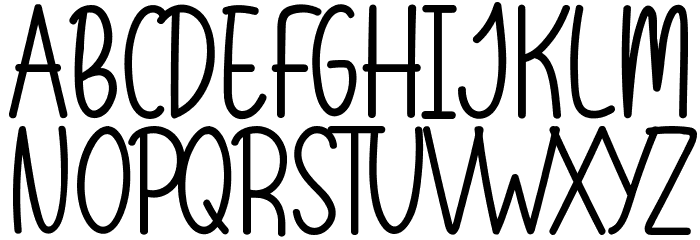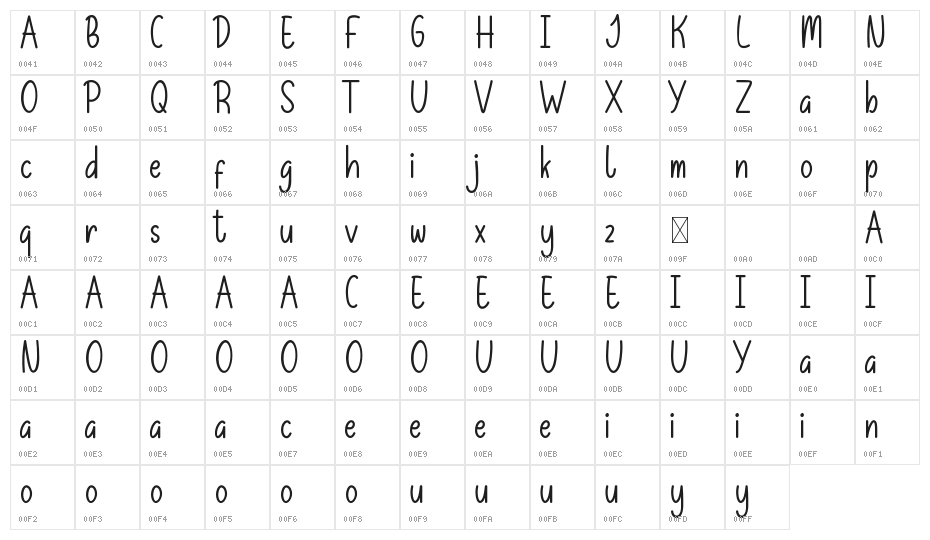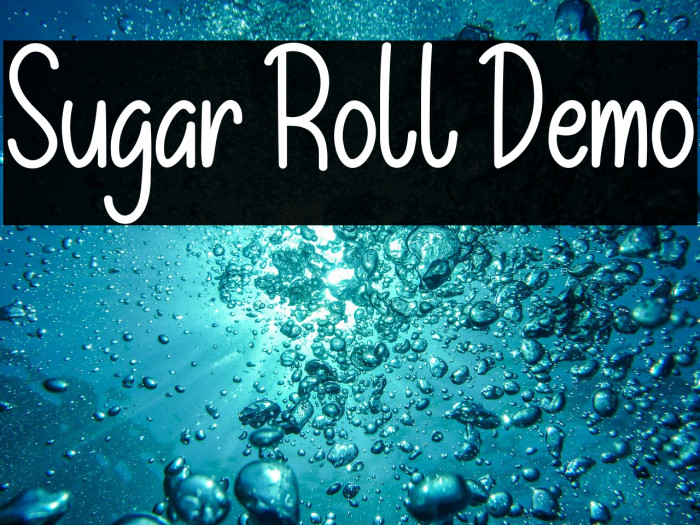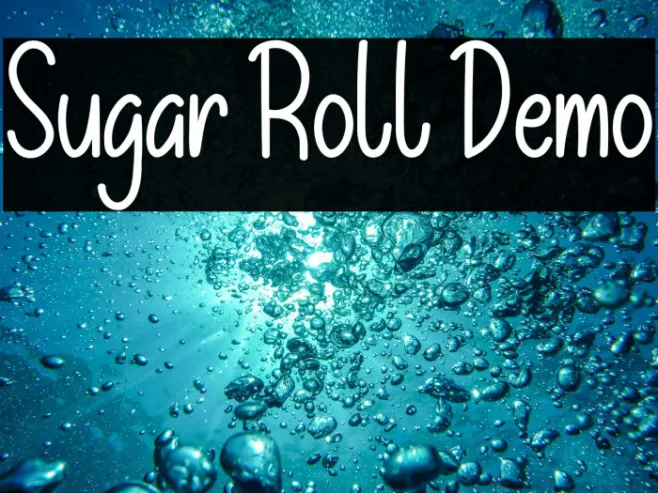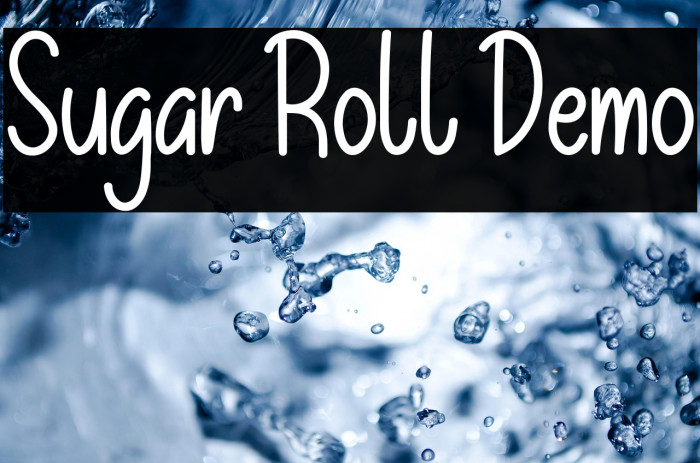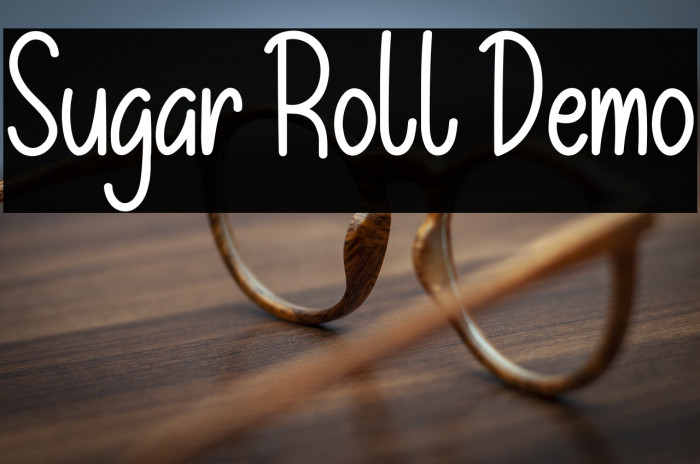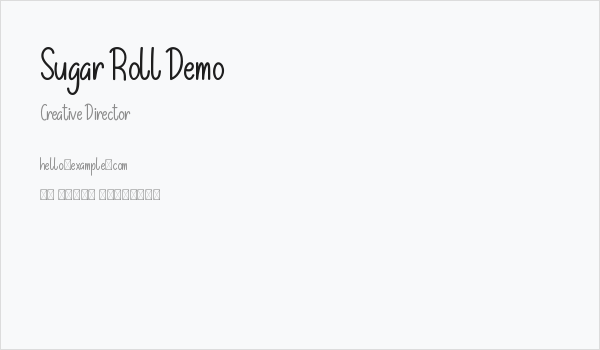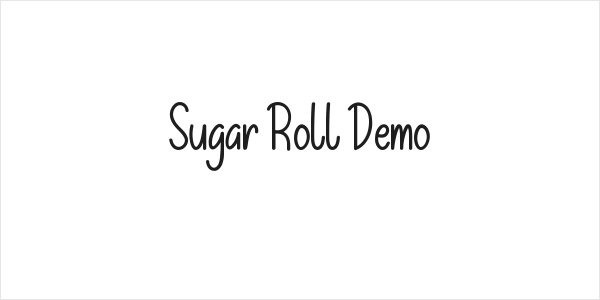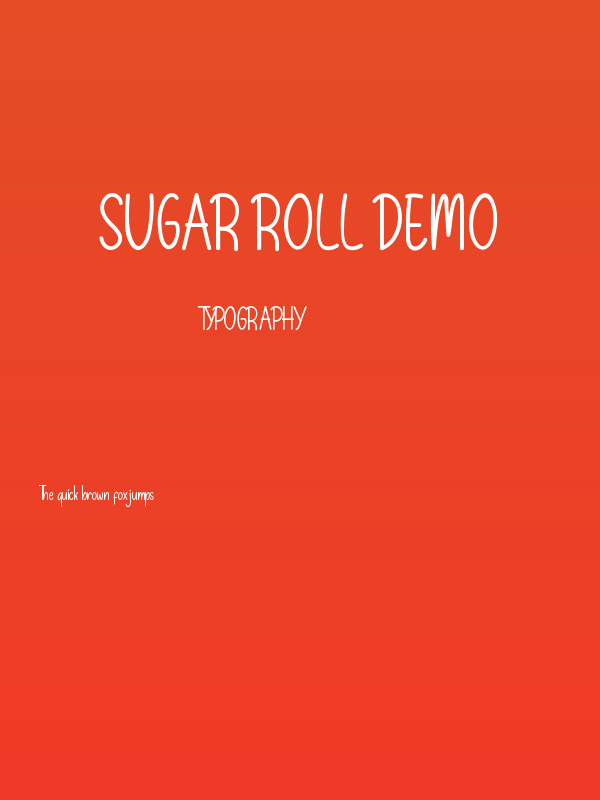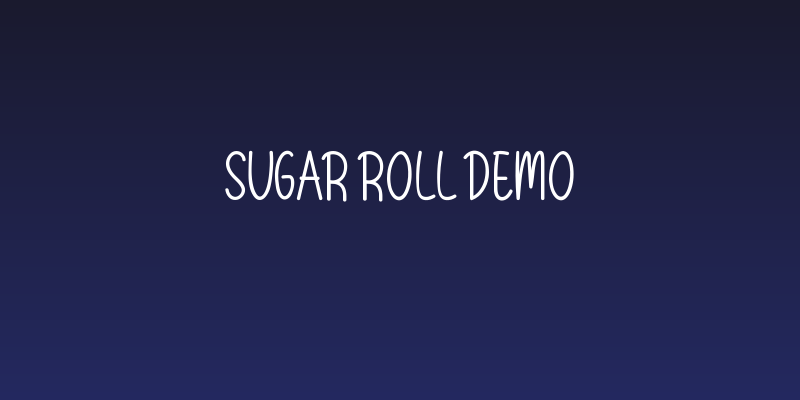
Sugar Roll Demo Font
Sugar Roll Demo Description
This playful and whimsical font features a handwritten style with a smooth, flowing appearance. The characters are tall and slightly narrow, with rounded edges that give a friendly and approachable feel. The uppercase and lowercase letters maintain a consistent style, with a slight slant that adds a dynamic touch. The font's casual and informal nature makes it ideal for creative projects that require a personal touch. The spacing between characters is moderate, ensuring readability while maintaining its unique style. This font is perfect for projects that aim to convey warmth and creativity.
Overall StylePlayful
Use CaseLogos, Headlines, Creative projects
Proposed ProjectsIdeal for greeting cards, children's books, playful branding, and social media graphics.